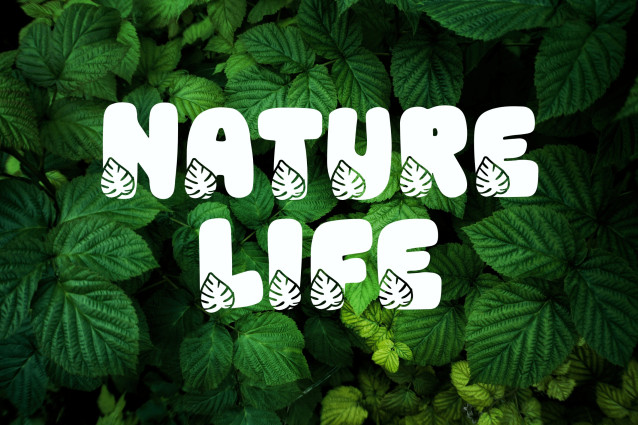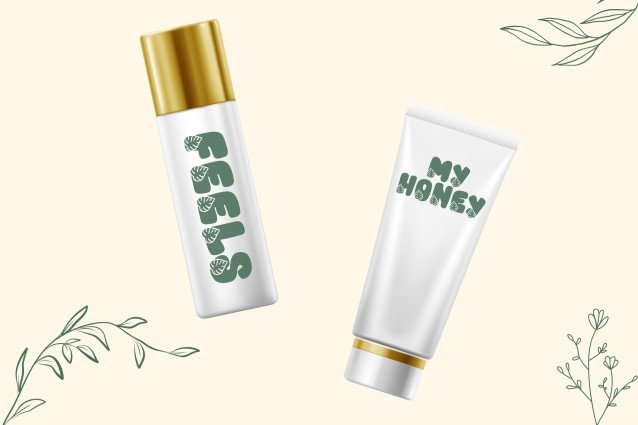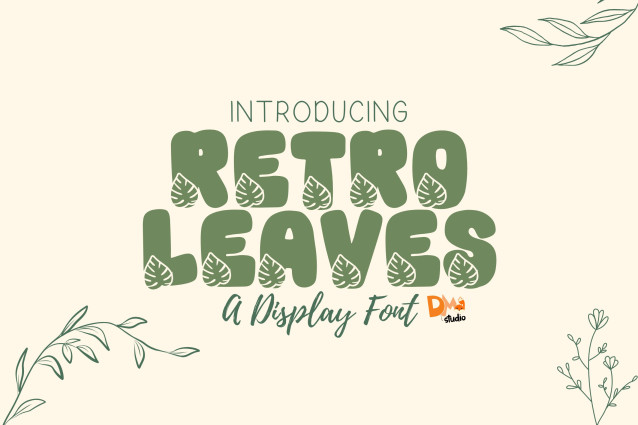
Retro Leaves Font
Retro Leaves Font is a stylish and organic display font that combines retro flair with botanical charm. Featuring bold letterforms adorned with subtle leaf-inspired details, this typeface is perfect for nature-themed projects, eco branding, seasonal designs, and vintage aesthetics. Its unique blend of earthy elegance and playful retro curves brings warmth and creativity to any visual project.